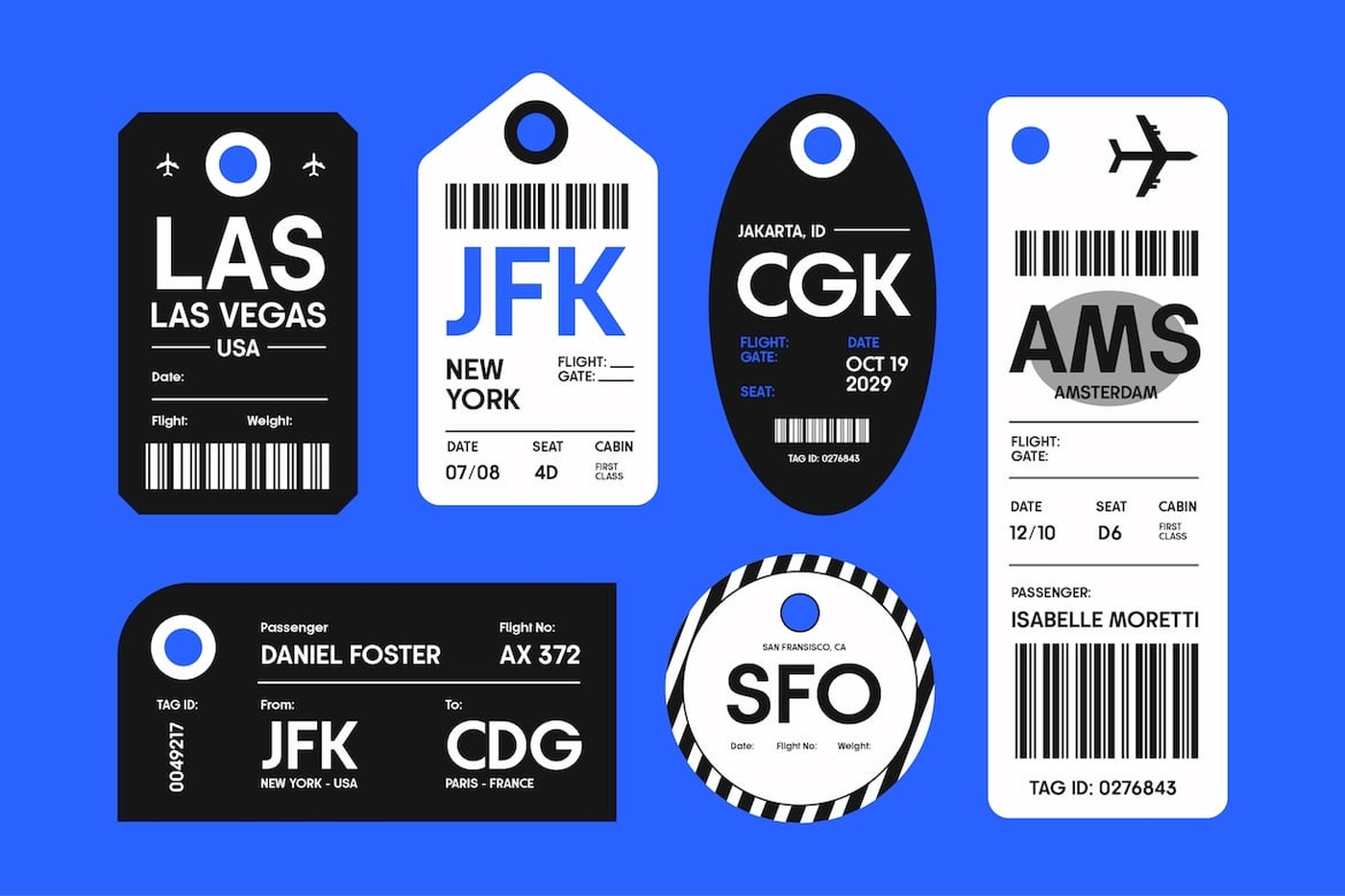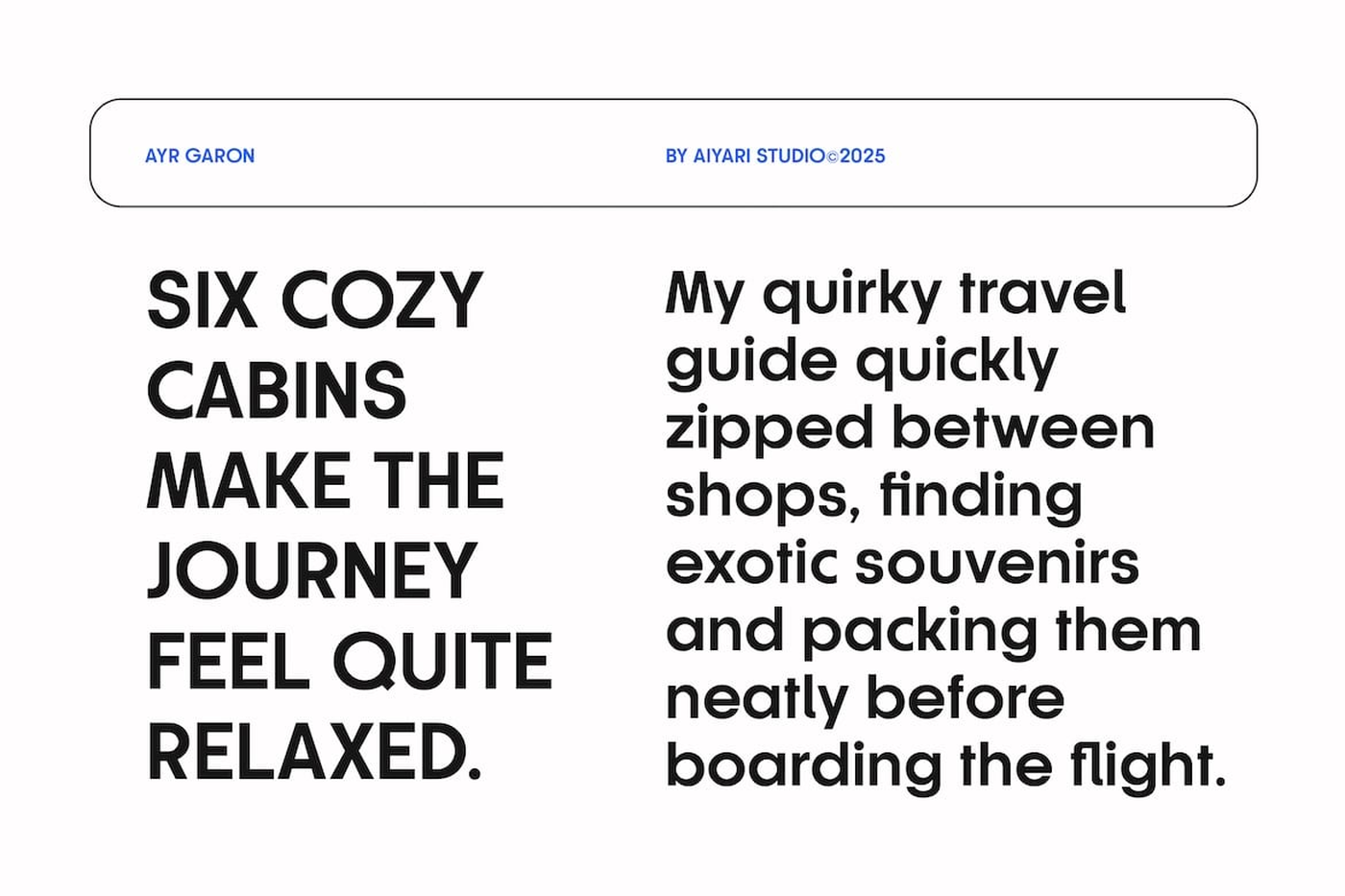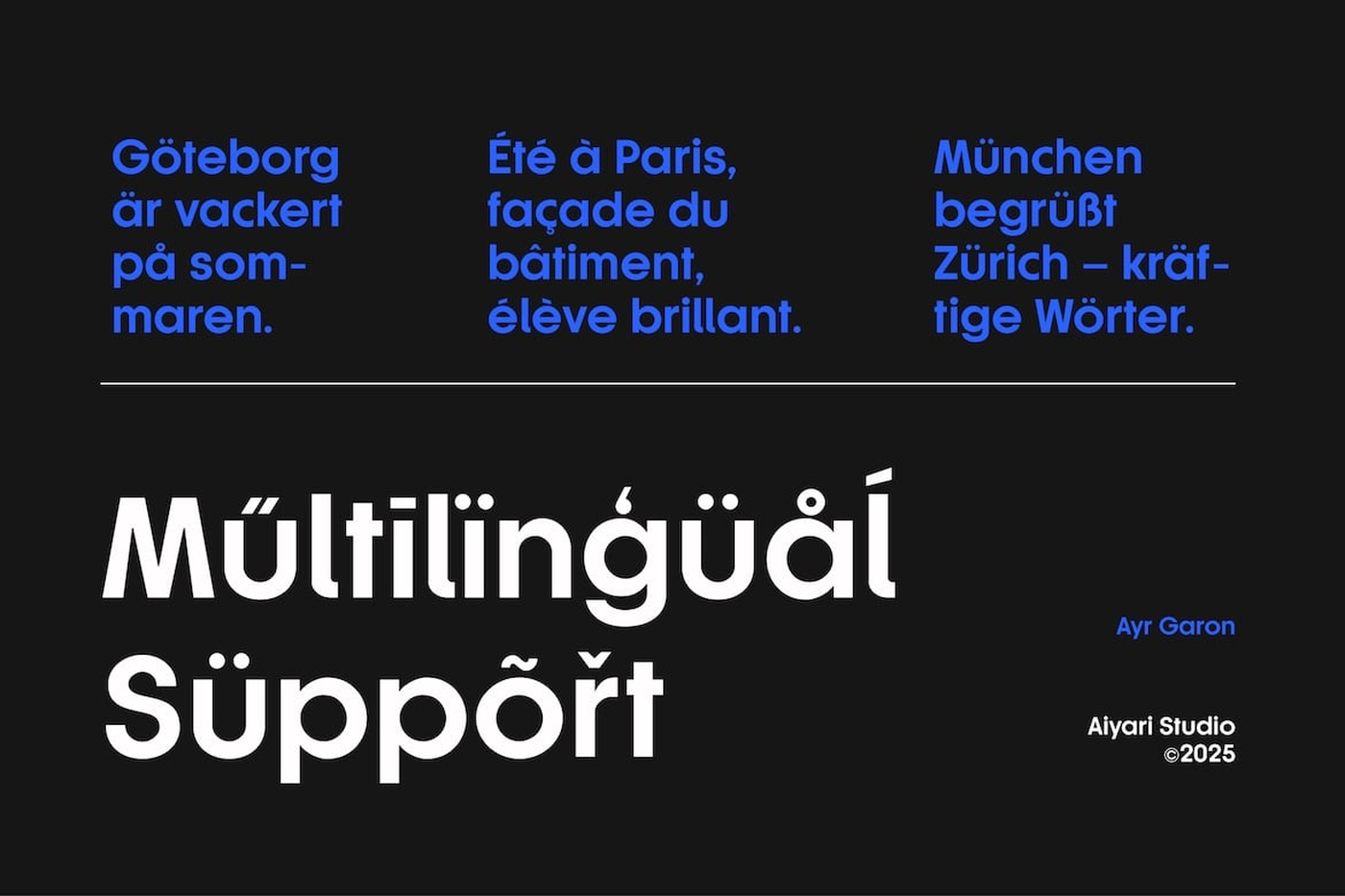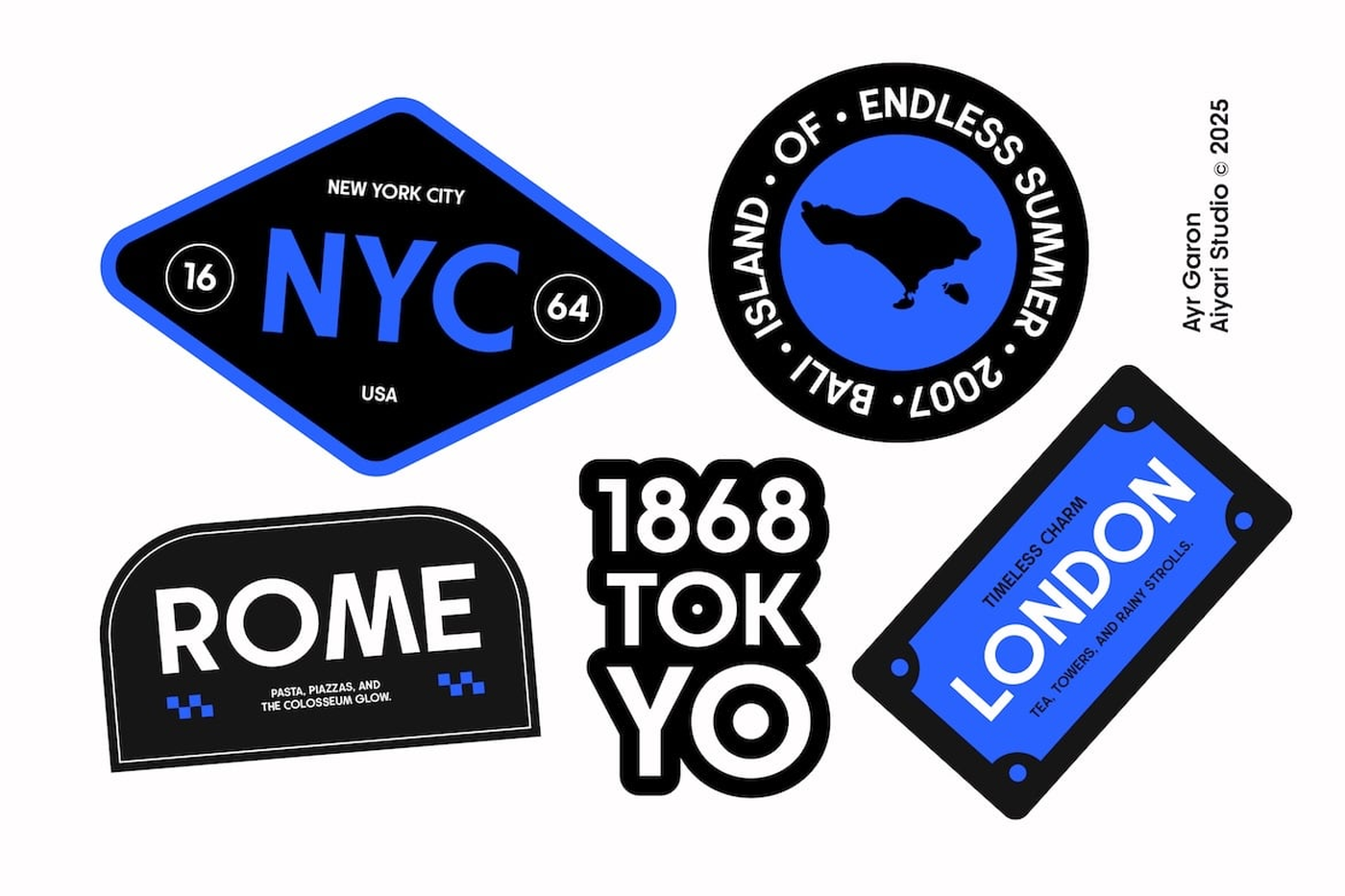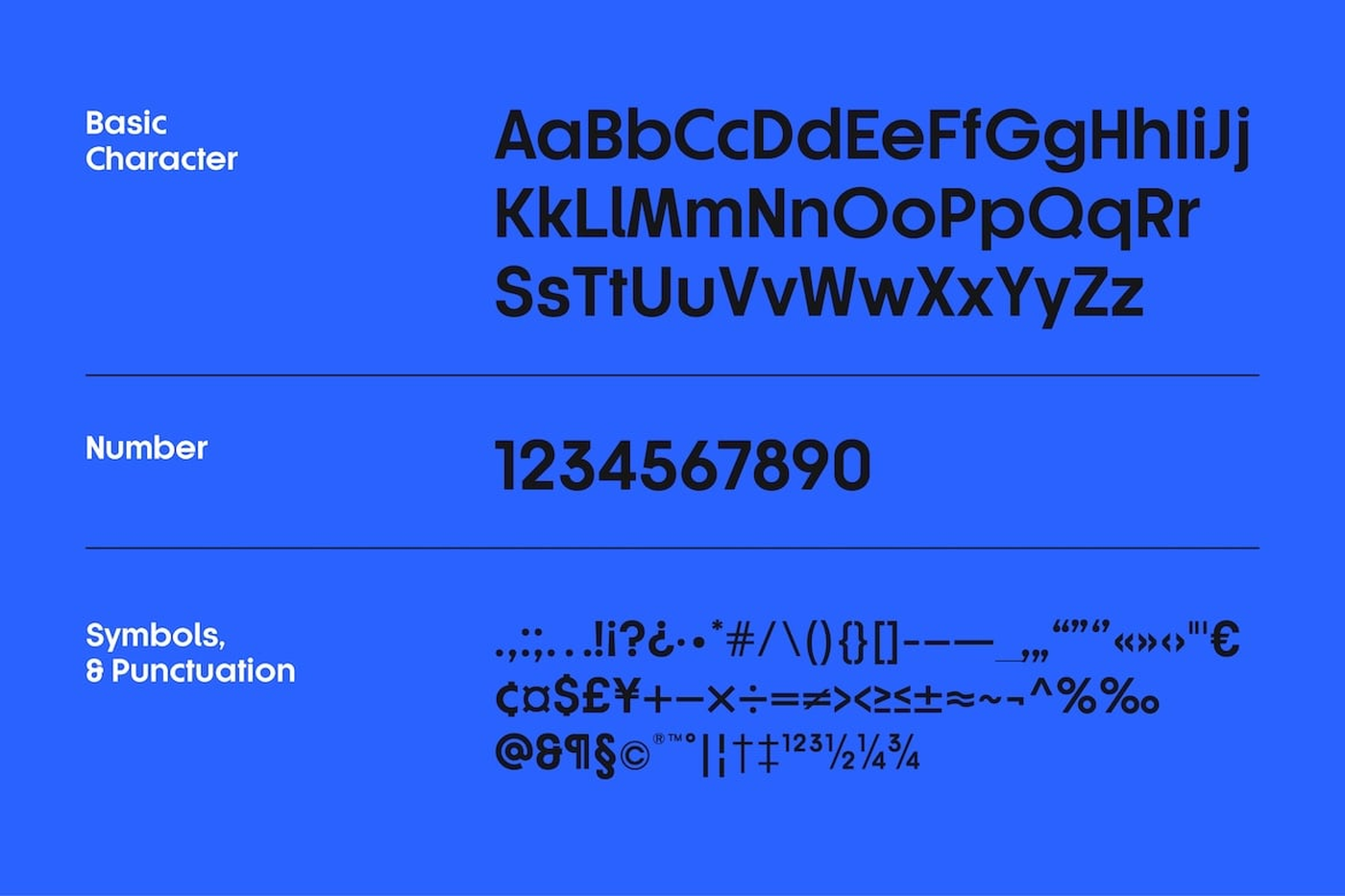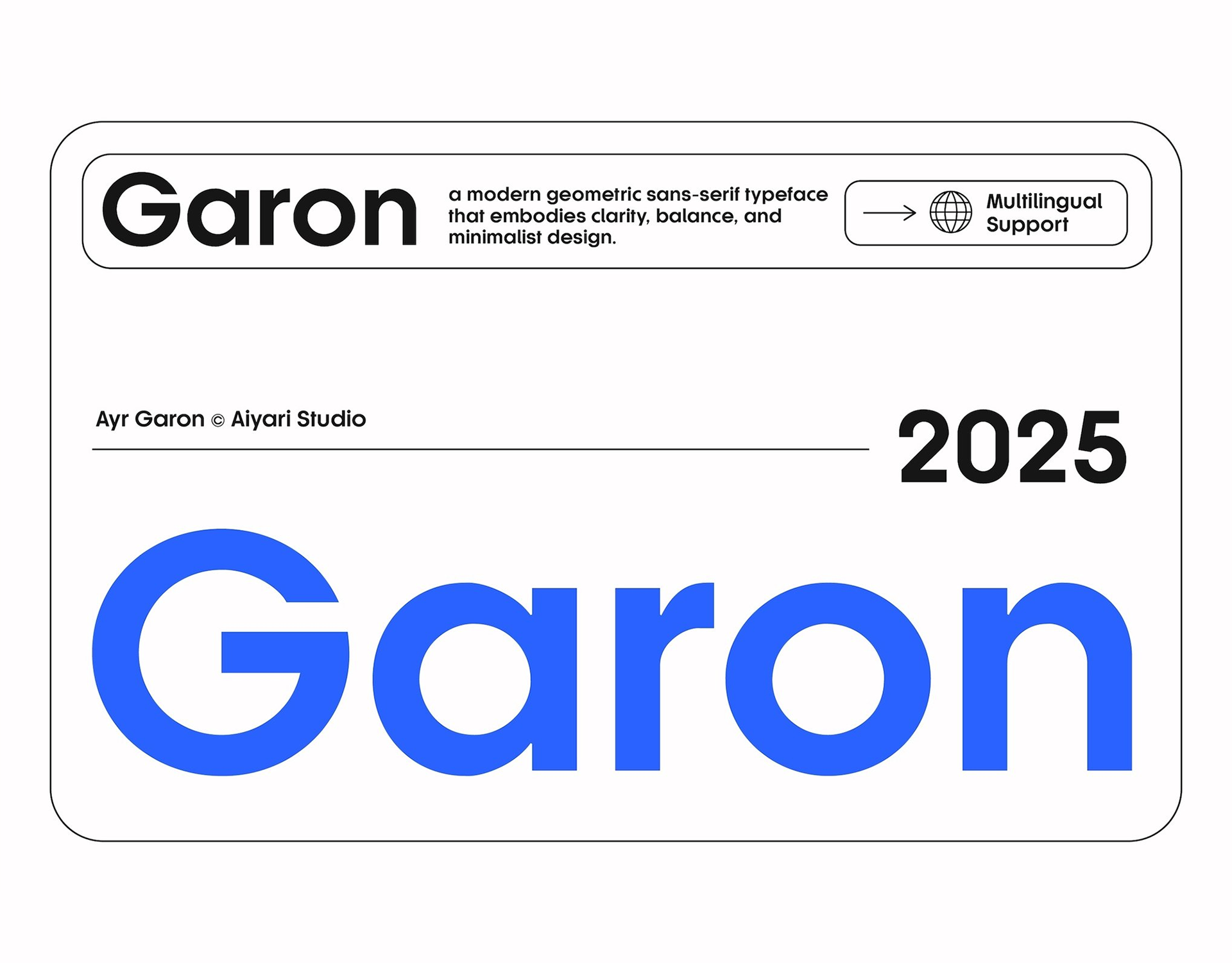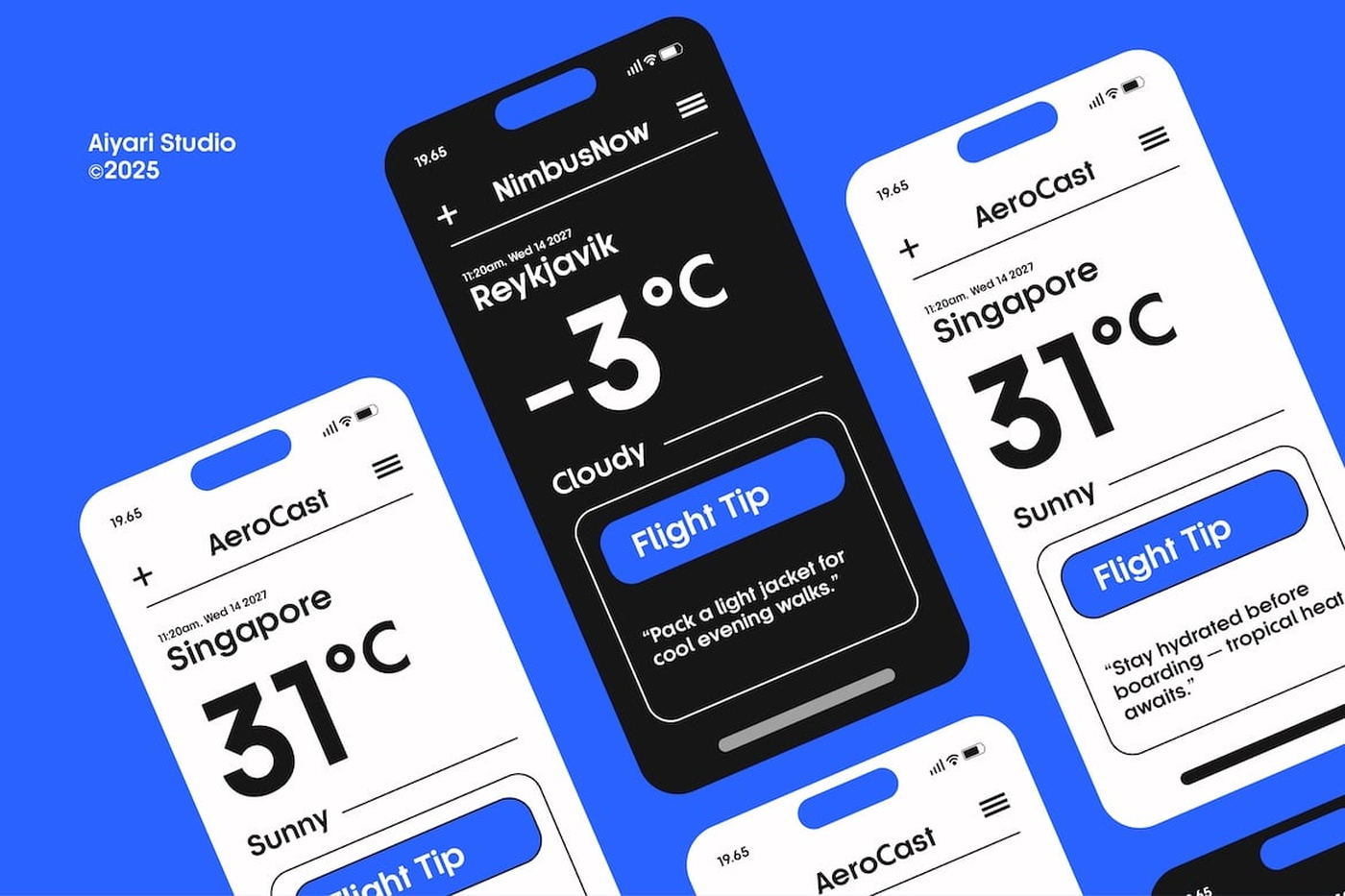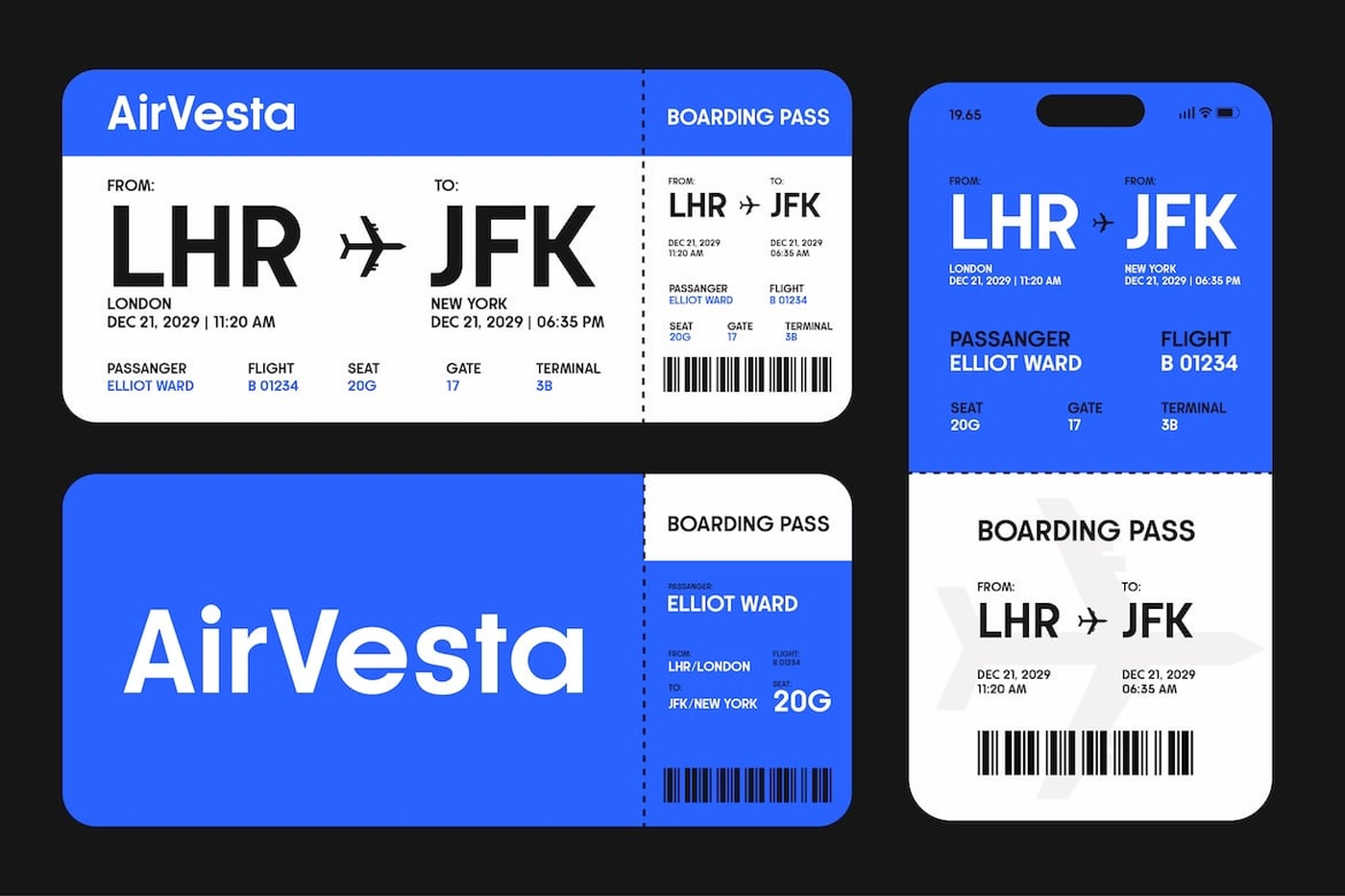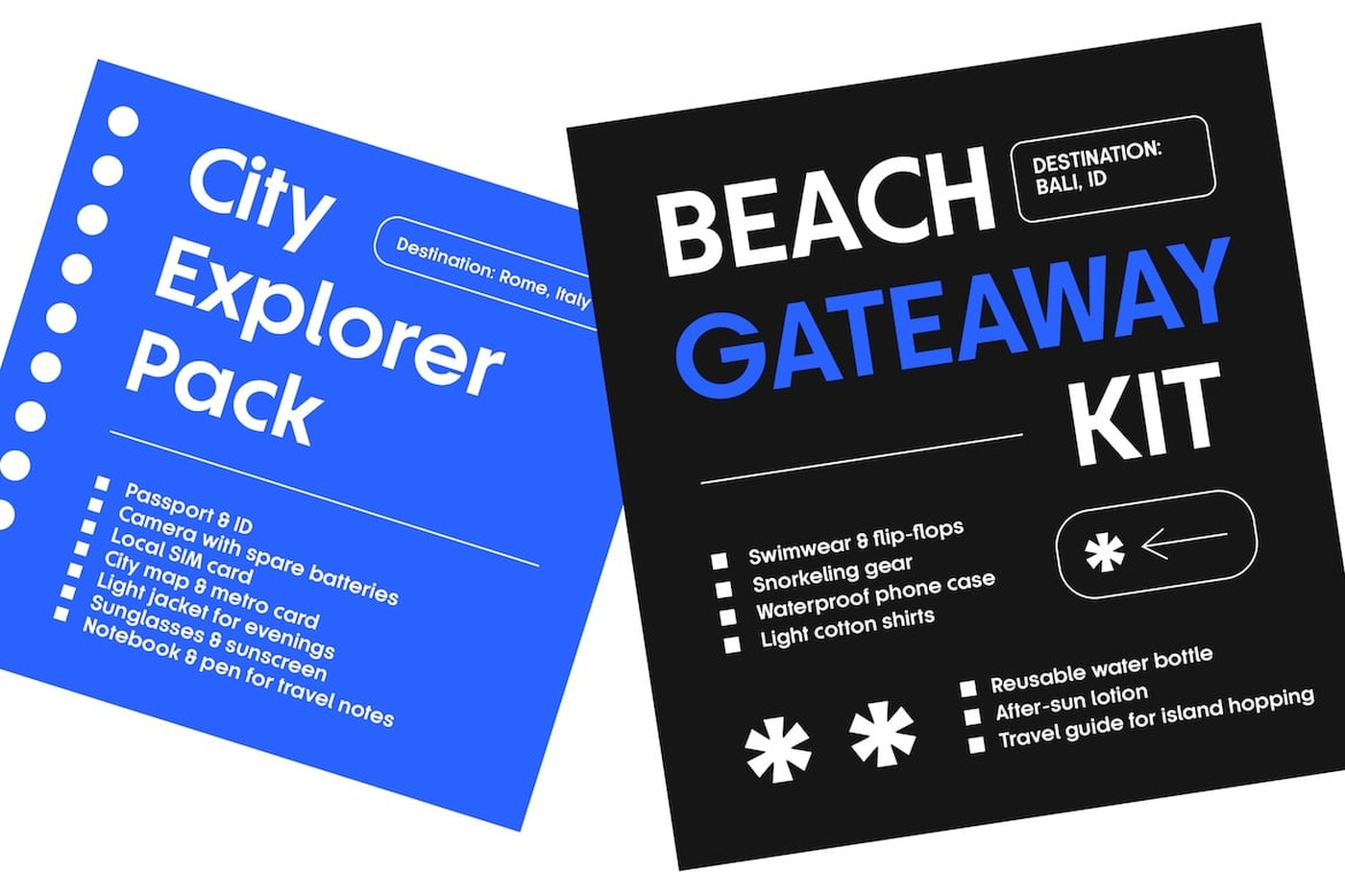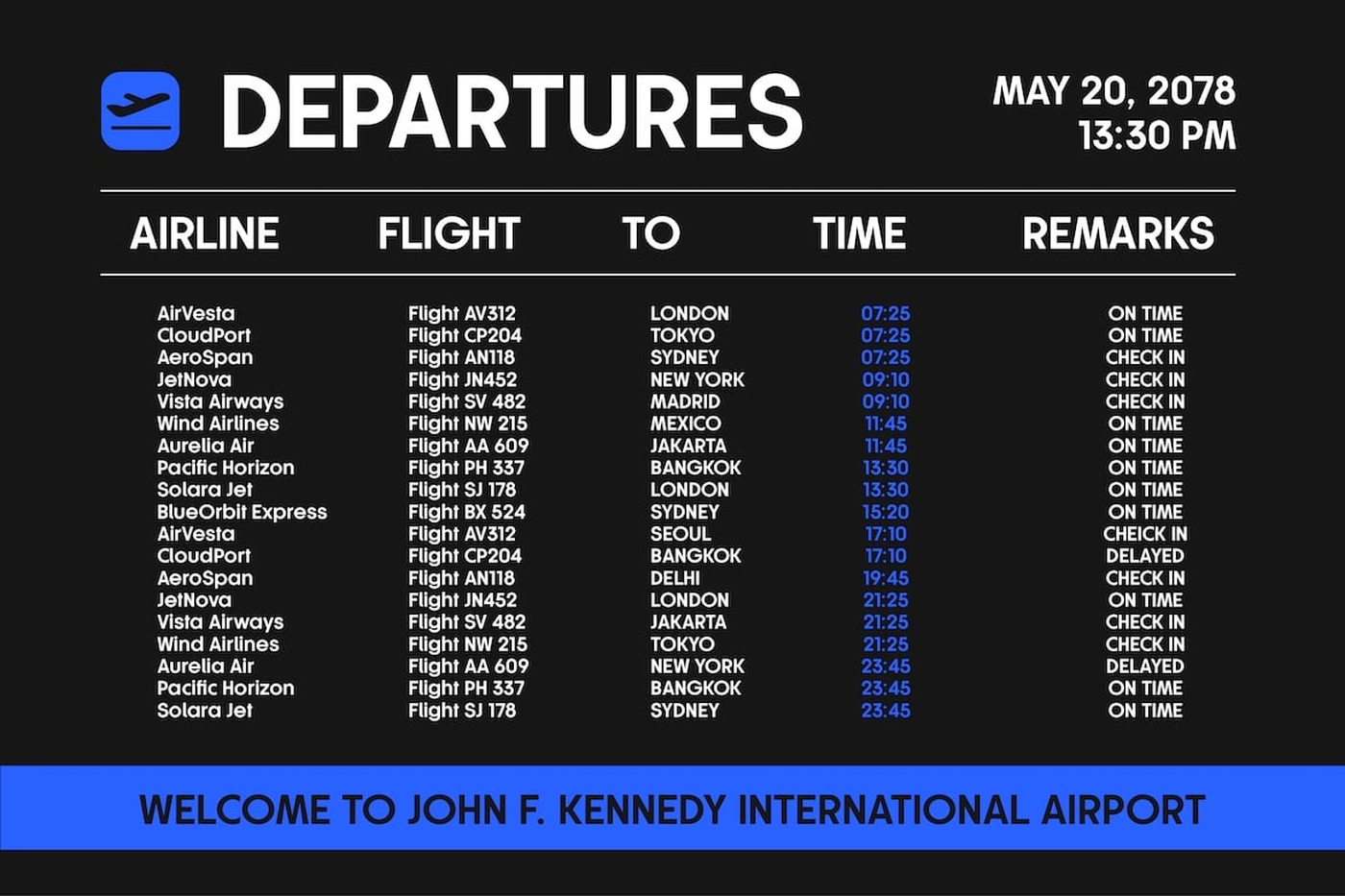
Garon - Geometric Sans Serif Font
Garon is a modern geometric sans-serif typeface that embodies clarity, balance, and minimalist design. With perfect circular forms, even stroke widths, and a neutral tone, it’s built to deliver simplicity without sacrificing character. Garon’s clean, modern structure makes it ideal for tech branding, editorial layouts, UI/UX interfaces, fashion campaigns, and contemporary packaging. Whether used in print or digital, Garon creates a polished and professional presence with effortless modernism.
Designer: Aiyari Studio
Font: Garon